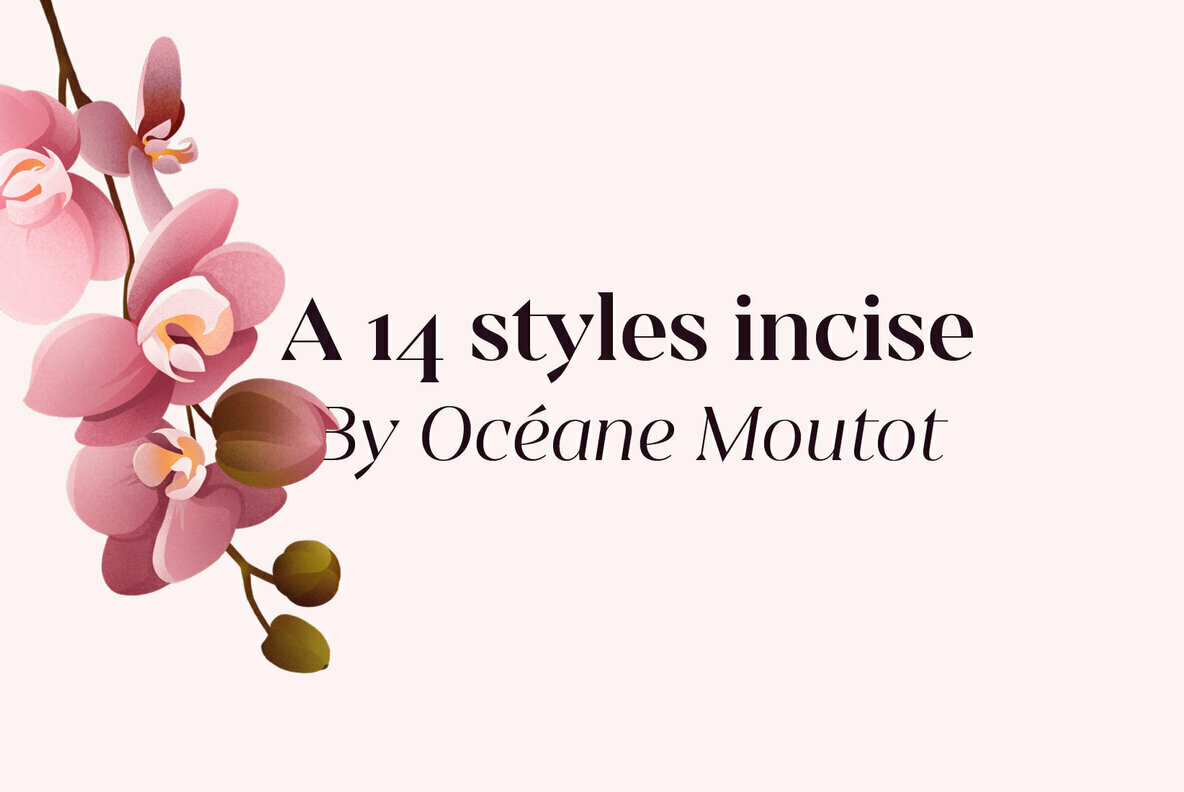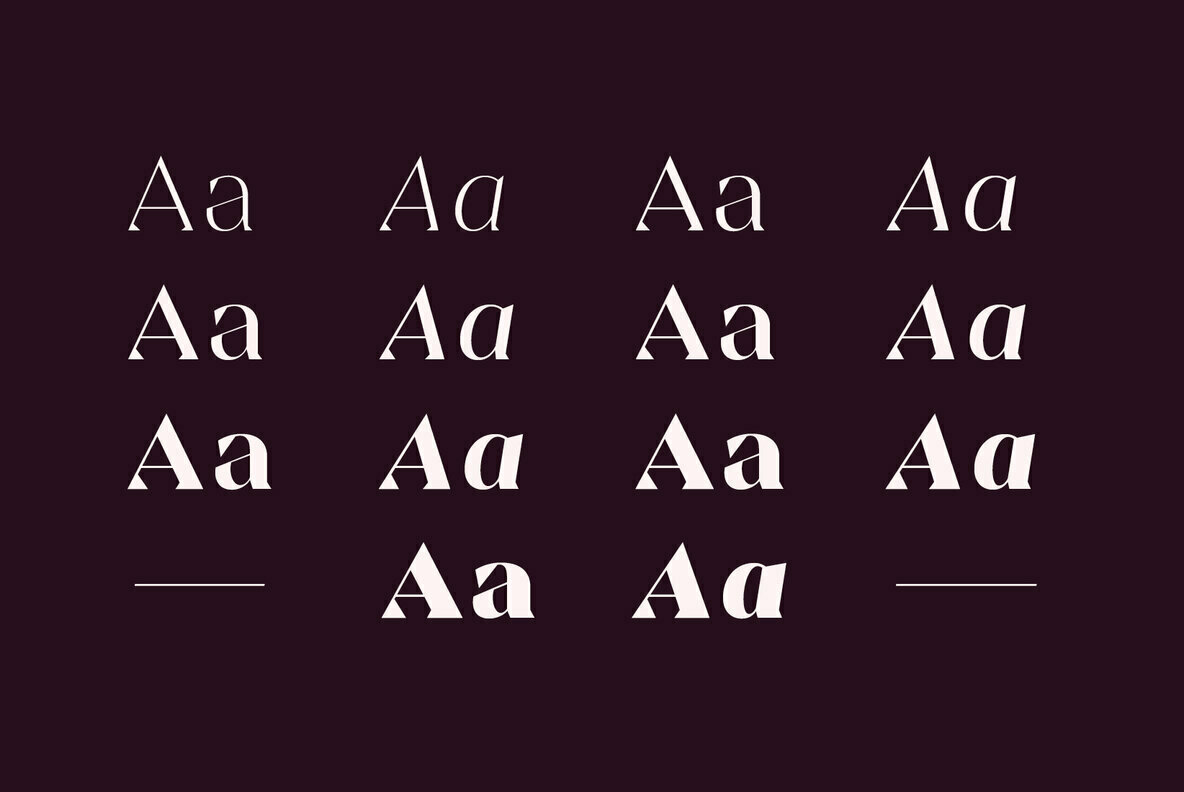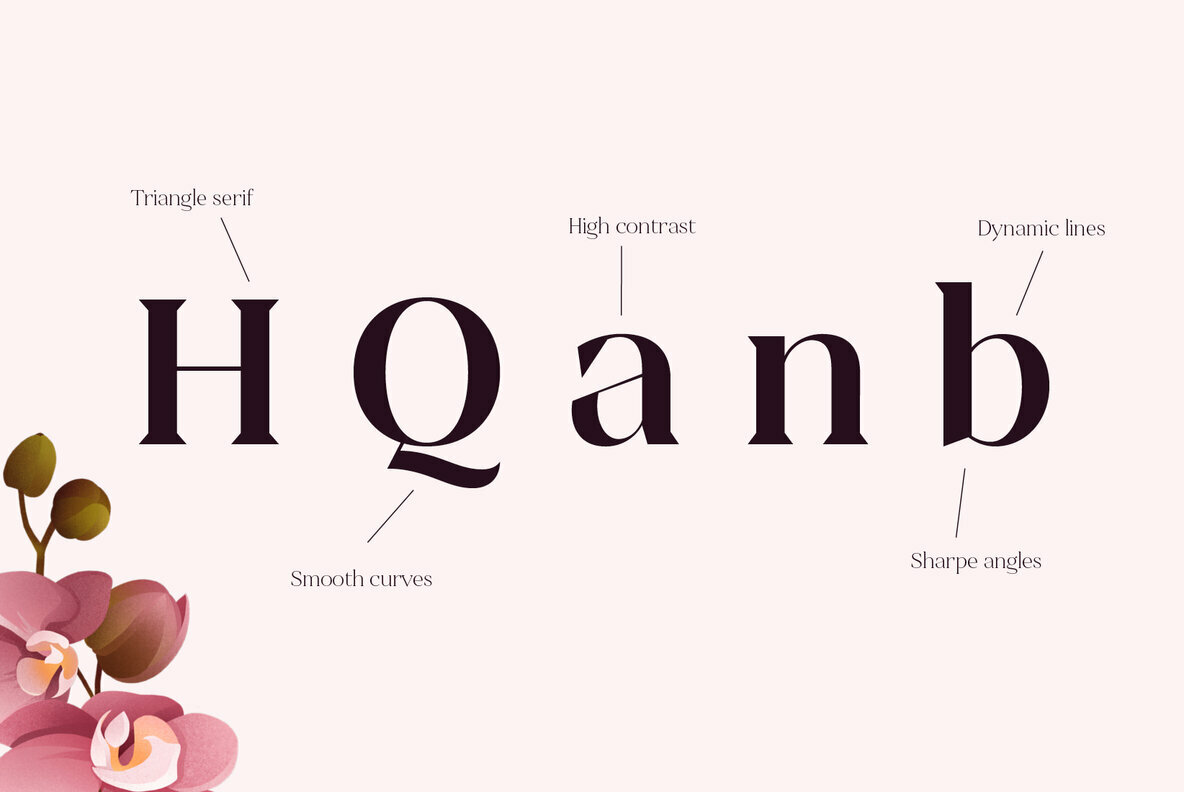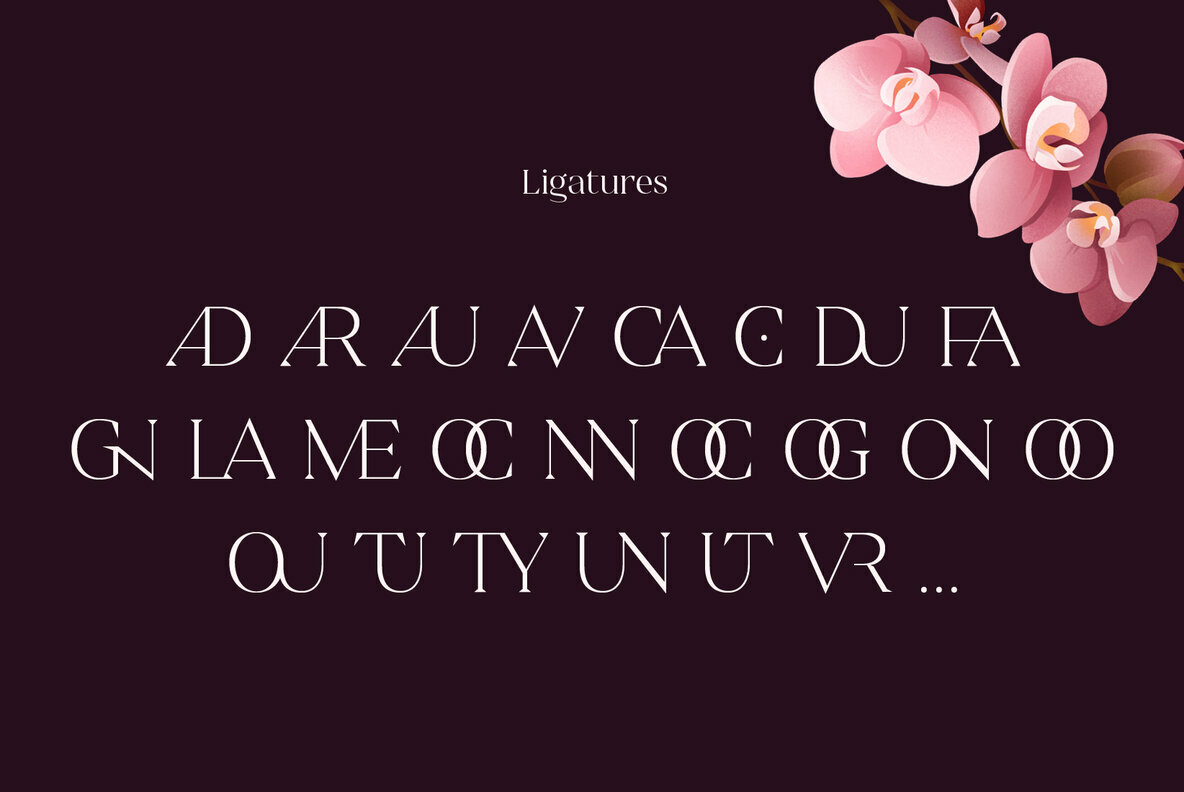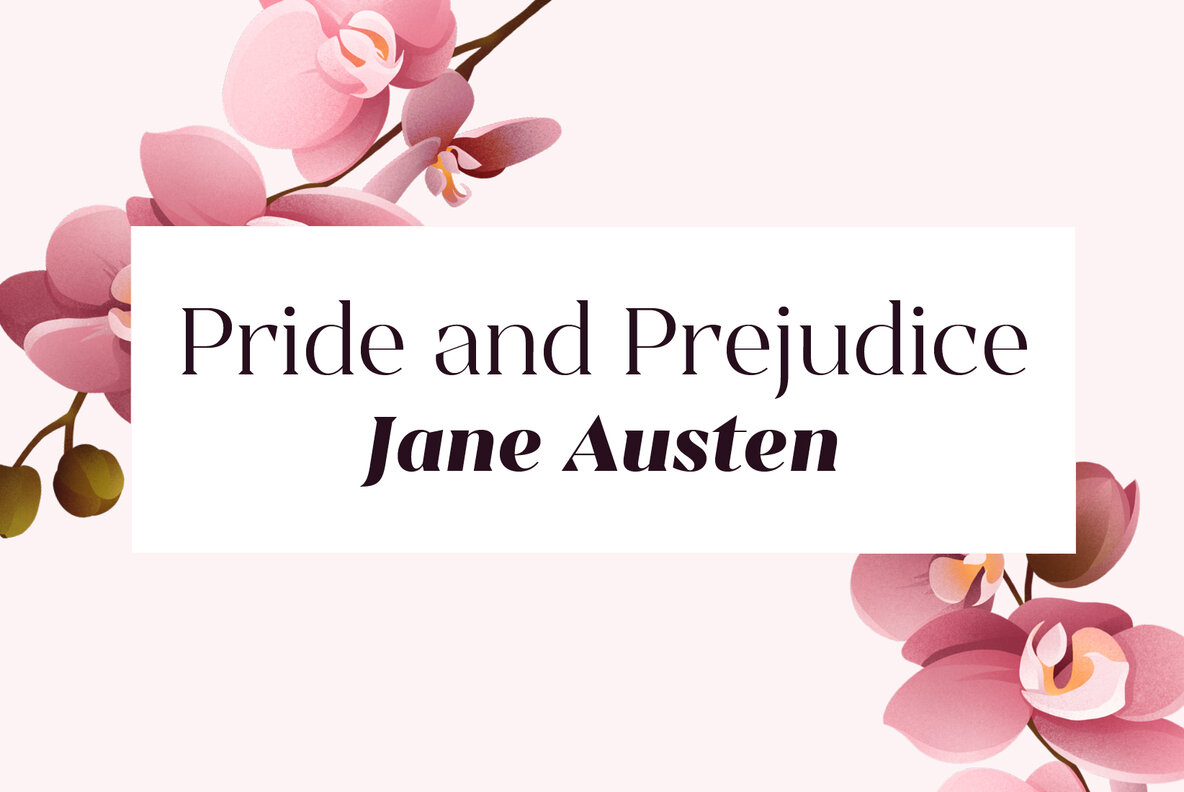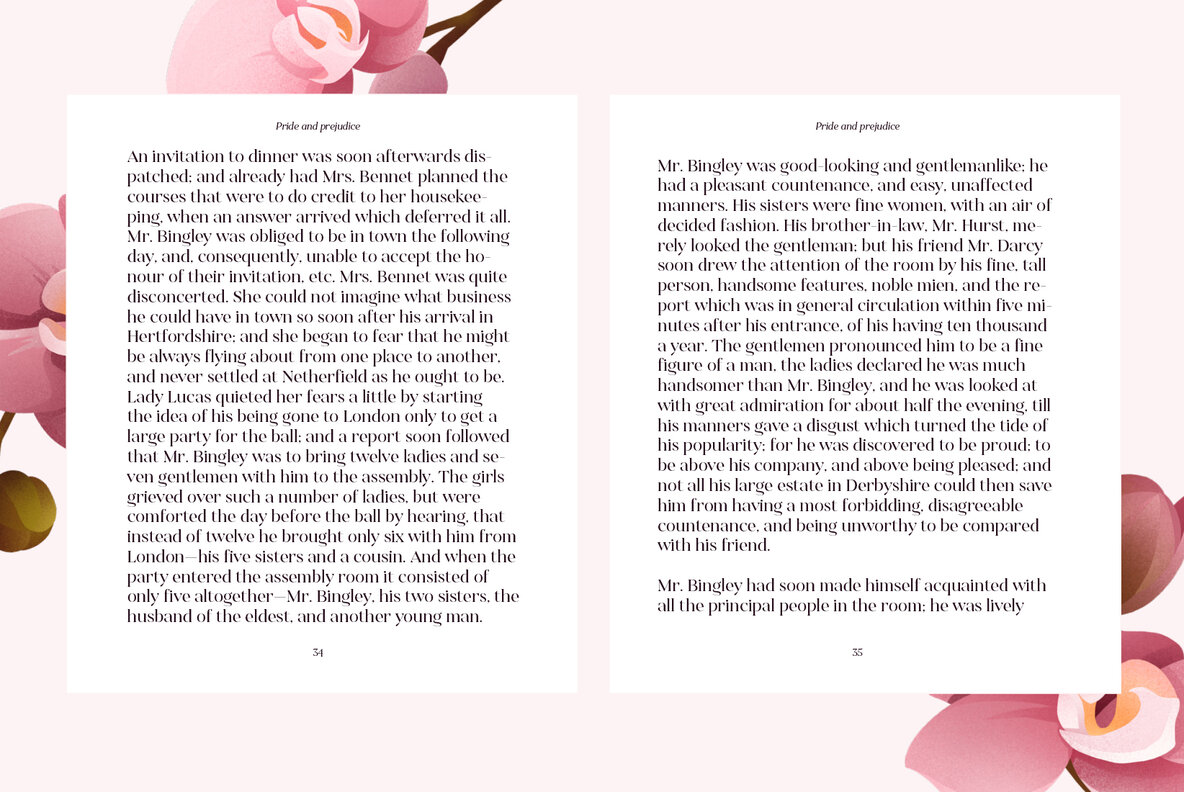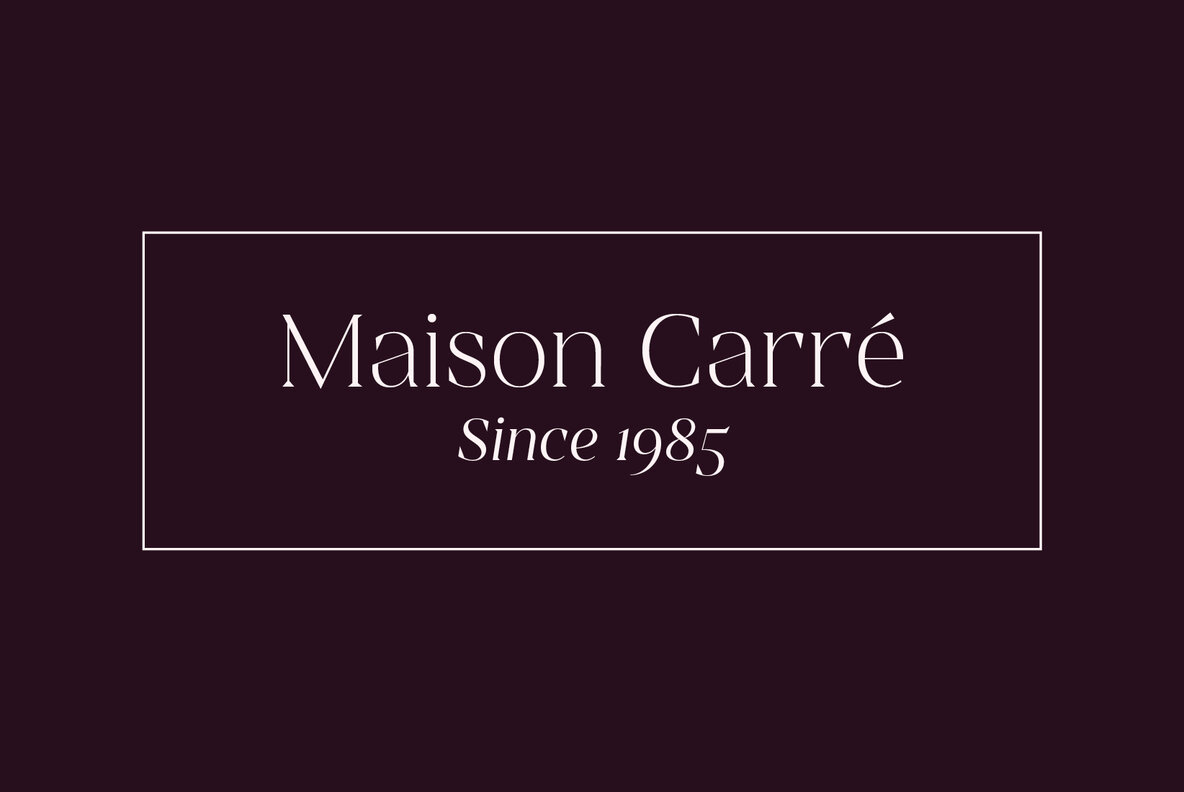
Sincerity Font
Sincerity is an elegant and strong typeface identified by its high contrast, its sharp shapes and triangular serifs. Inspired by the Didone style, Sincerity adds modernity and some unique features to it. It offers a large choice of uses, from titles of magazines to newspapers, logotypes and so on.
Sincerity is available in 16 styles, from thin to black in roman and italic.
Océane is a french graphic and type design since 2016. In 2020, she published her first font, Honesty, a 16-style flared, lapidary or incised sans typeface family that took inspiration from the Trajan column carvings and Berthold Wolpe's Albertus (1938). Two typefaces are currently published.